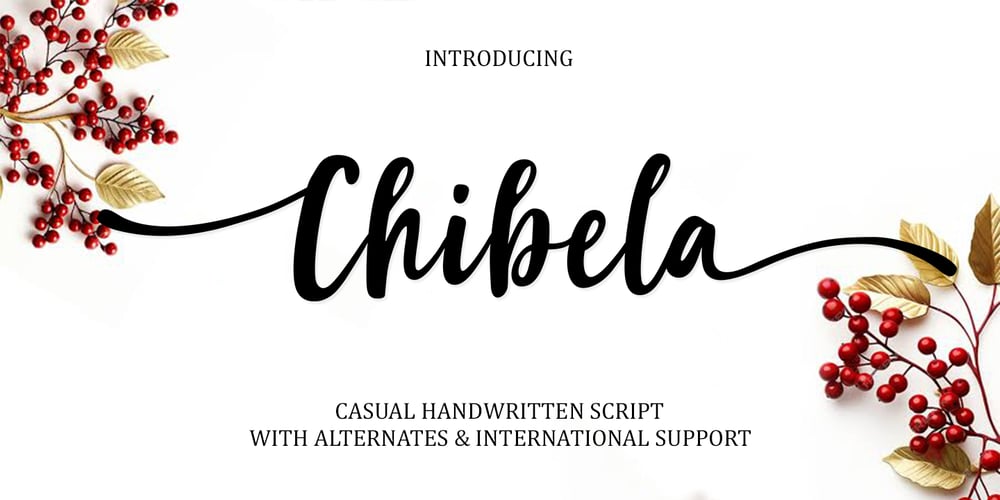
Chibela Font Family was designed by Muammar and published by Scoothtype. Chibela contains 3 styles and family package options. Thanks for checking out Chibela Script! A fabulously fun yet elegant script font with tons of energy, allowing you to create beautiful hand-made typography in an instant. Chibela Script is guaranteed to make your text stand out – perfect for logos, printed quotes, cards, product packaging, headers and whatever your imagination holds. What’s really awesome is that Chibela Script comes with a complete set of lowercase alternates, which allows you to create even more authentic custom-feel text.Thank you very much have a nice day.